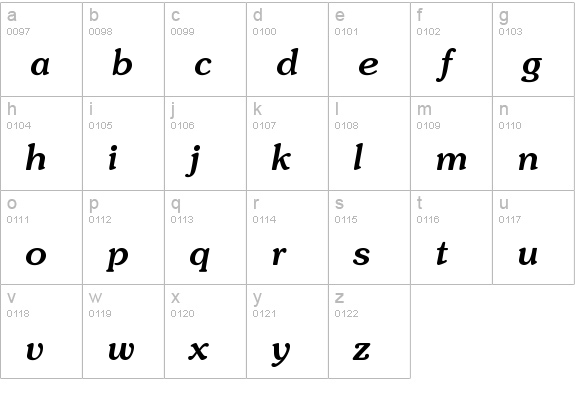
SouvenirEF-MediumItalic Font Details
SouvenirEF-MediumItalic font is a stunning typeface that effortlessly combines elegance and sophistication. Its medium italic style adds a touch of flair to any design, making it perfect for various creative projects. With its gentle slant and graceful letterforms, SouvenirEF-MediumItalic exudes a sense of refinement and charm. This font's versatility allows it to be used in a wide range of applications, from branding and logo design to editorial layouts and invitations. Its unique italic style lends a sense of movement and fluidity to any text, making it visually captivating and engaging for readers. One of the best features of SouvenirEF-MediumItalic font is that it is available for free download at FontsMarket.com. This means that designers, artists, and enthusiasts alike can easily access and utilize this beautiful typeface without any cost. Whether you're a seasoned professional or just starting out, SouvenirEF-MediumItalic font offers a valuable resource that can enhance your creative projects. The attention to detail in SouvenirEF-MediumItalic font is evident in its meticulously crafted letterforms, ensuring legibility and readability even at smaller sizes. The subtle curves and gentle strokes create a harmonious balance, while the medium weight adds a sense of stability and confidence. Whether you're designing a brochure, creating a website, or crafting an invitation, SouvenirEF-MediumItalic font will elevate your work and leave a lasting impression. Its timeless elegance and versatility make it a standout choice for designers seeking a font that is both visually striking and functional. Download SouvenirEF-MediumItalic font for free at FontsMarket.com and unlock its endless creative possibilities. With its exquisite design and effortless style, this font is a must-have for any designer's toolkit. Embrace the beauty of SouvenirEF-MediumItalic font and elevate your designs to new heights.